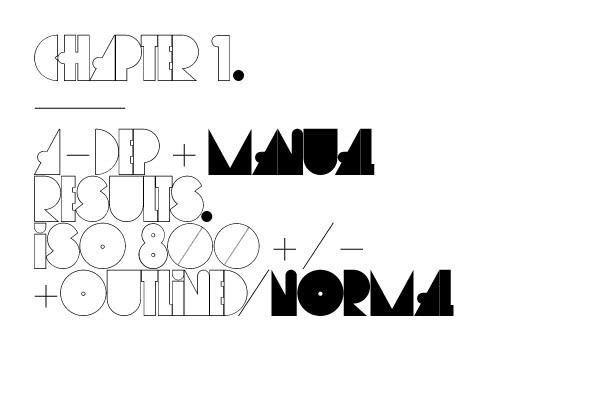
ARCOŽ is a brand new fat-face with some geometrical tweaks grabbing fresh and ideal for fashion editorial headlines. ARCOŽ also combines elegant symbols to sweet contrast. Normal & Outline version.